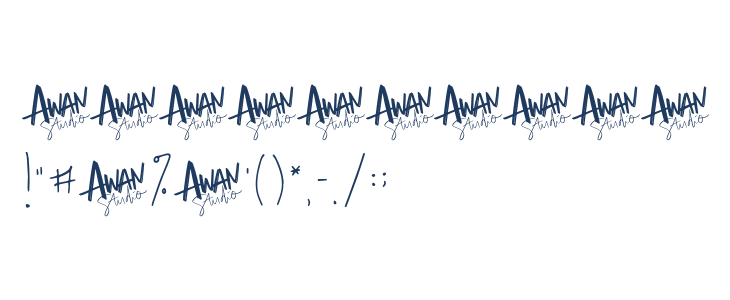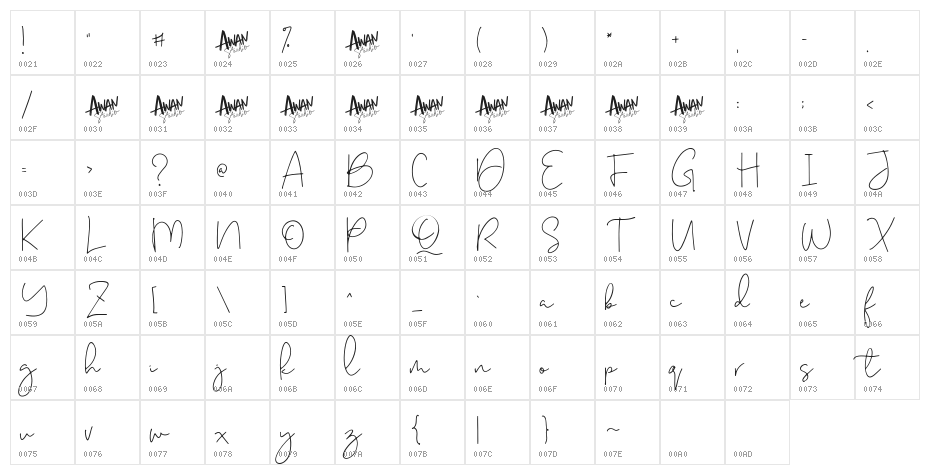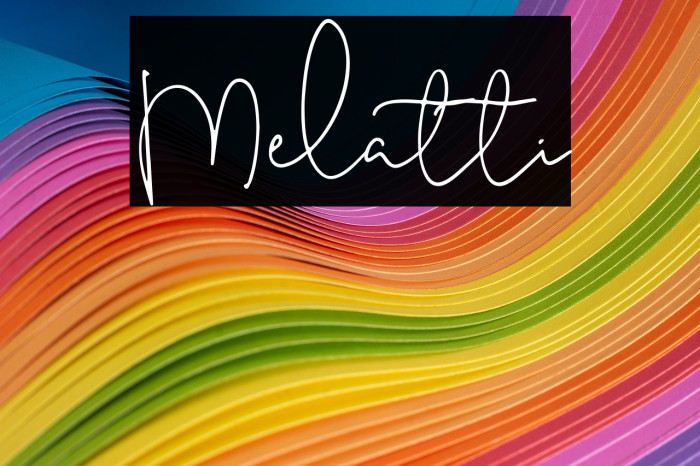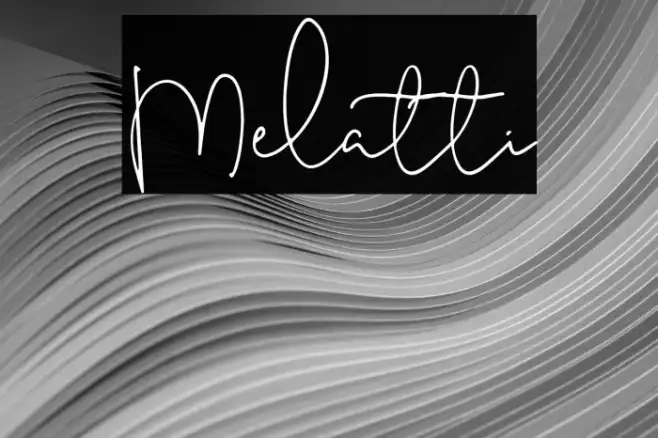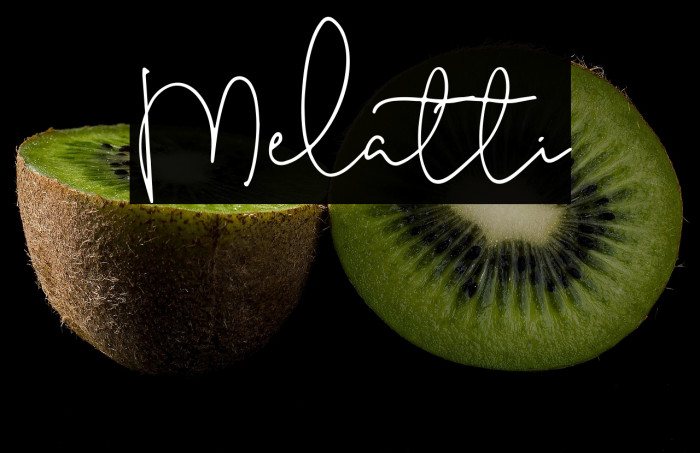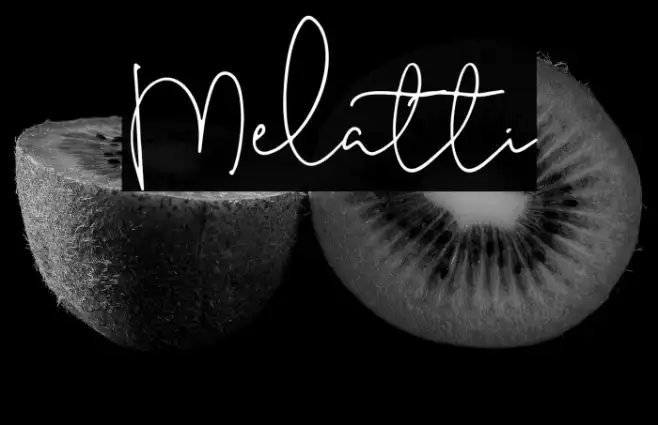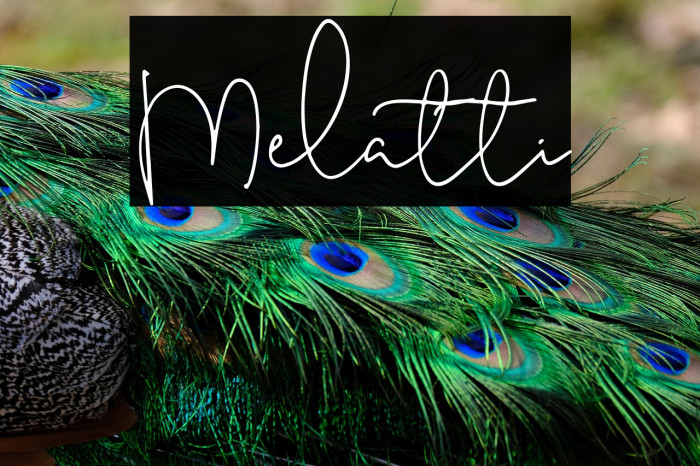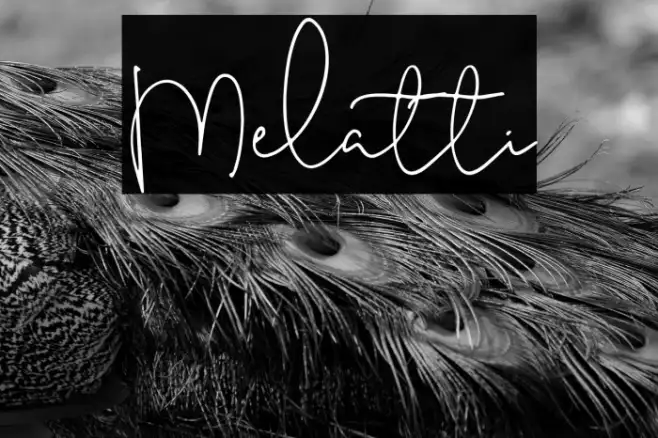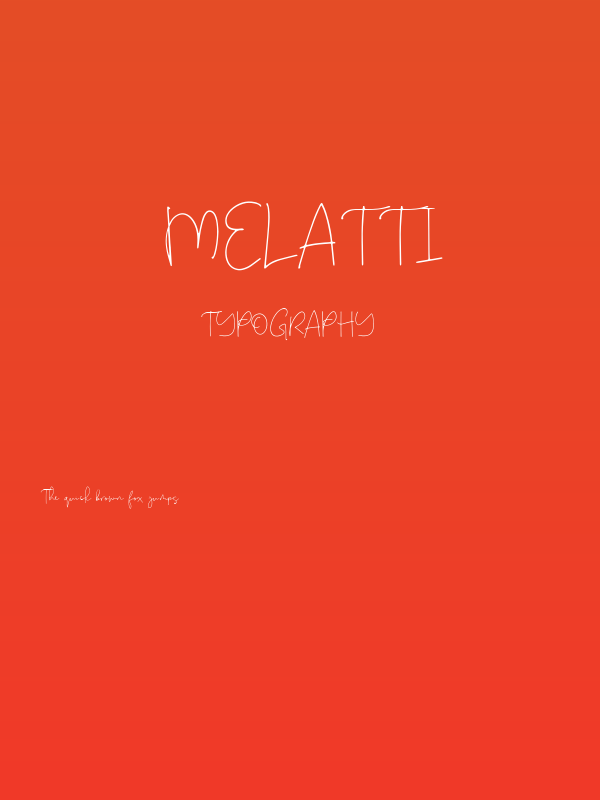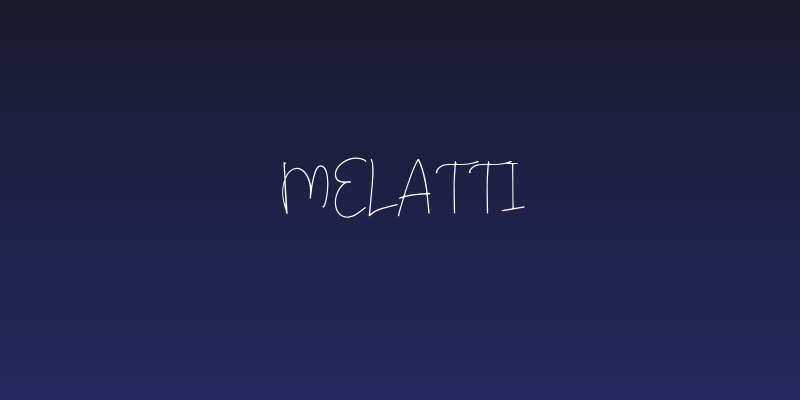
Melatti Font
Melatti Description
This font features a modern, handwritten style with a playful and casual appearance. The uppercase letters are tall and slightly narrow, with a whimsical flair that adds character to each letterform. The lowercase letters maintain a consistent flow, with some letters connecting in a cursive-like manner, enhancing the font's fluidity. The strokes are thin and delicate, giving the font a light and airy feel. Special characters and numbers are designed to match the overall aesthetic, ensuring a cohesive look across all text. This font is ideal for projects that require a personal touch, such as invitations, greeting cards, or branding materials.
Use CaseLogos, Headlines, Decorative text
Proposed ProjectsIdeal for invitations, greeting cards, personal branding, and creative projects.